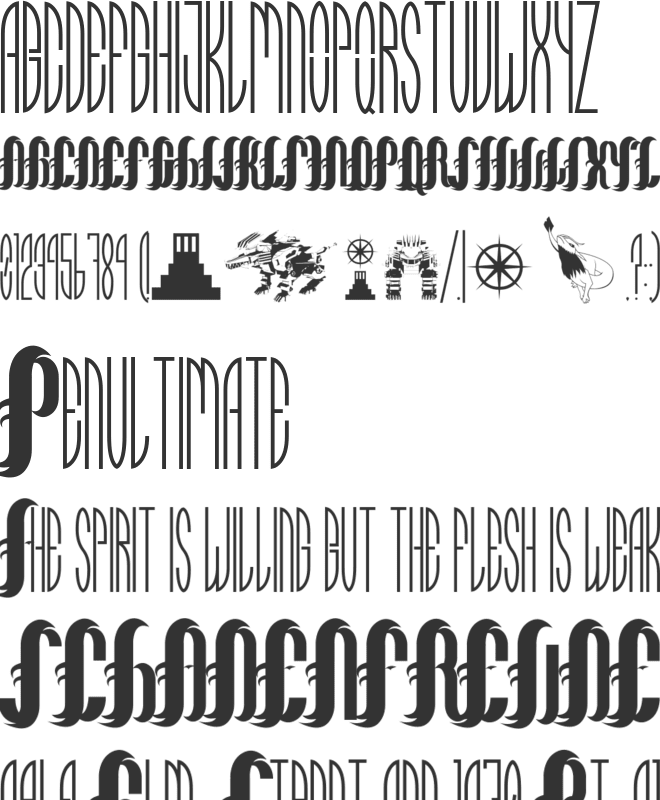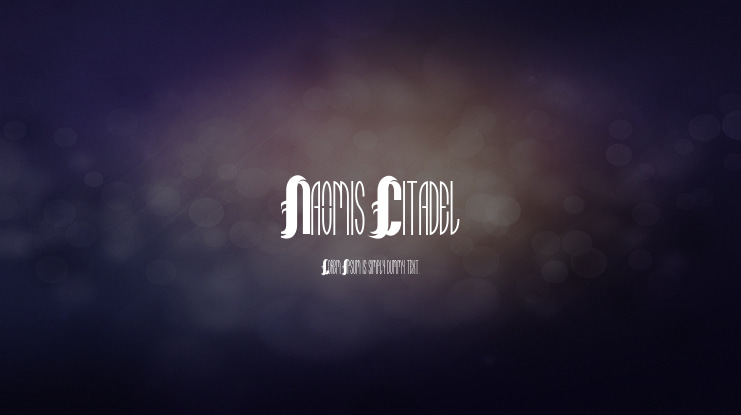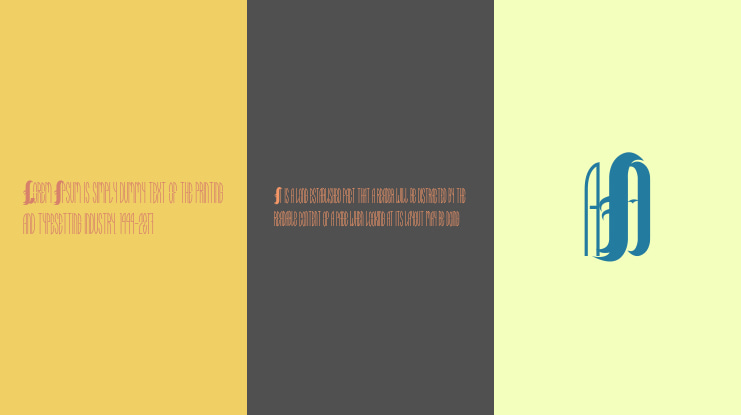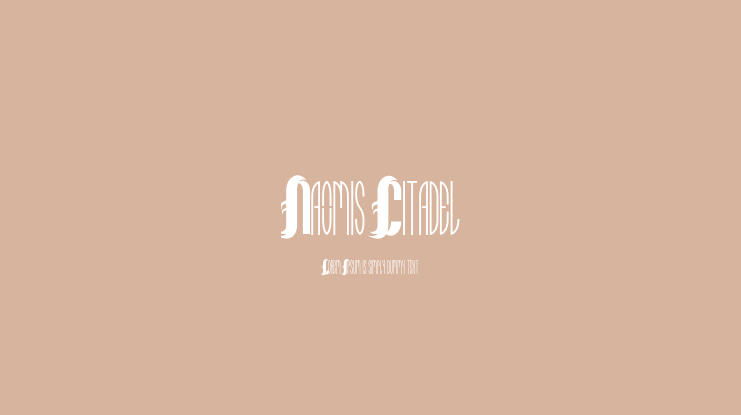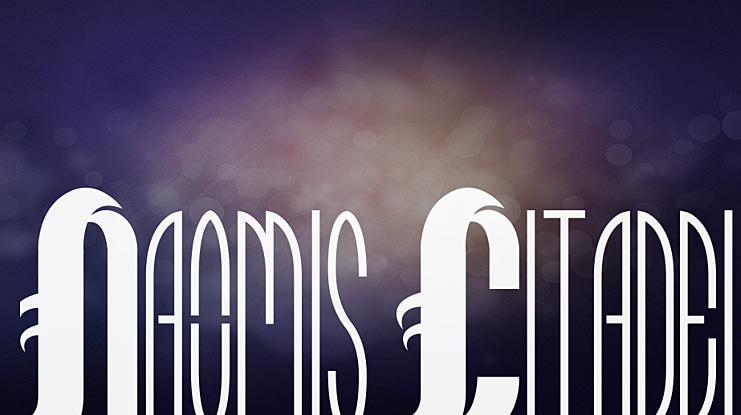
Naomis Citadel Font
A font comissioned by my good friend and author Rick Austinson for his upcoming Consecution Books series. The uppercase is a gothic/title style while the lowercase and symbols are a body text style. This font is intended to be used on a map. Check out the book at http://thecoursebooks.com/